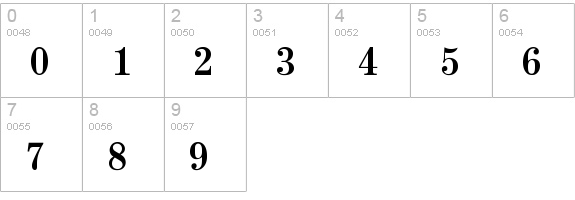
Century ATF Bold is a strong, high-contrast variant in the Century typeface family \xE2\x80\x94 well suited to headlines, attention-grabbing titles, and strong calls-to-action.
Century ATF Bold font is a modern and versatile typeface that exudes confidence and sophistication. With its bold and strong letterforms, this font is perfect for making a statement in headlines, titles, and branding materials. Its sleek and timeless design ensures readability and impact, making it a versatile choice for various design projects. Best of all, Century ATF Bold font is available for free download at FontsMarket.com. Whether you're a designer looking to add a touch of elegance to your work or a business owner seeking a distinctive font for your brand, Century ATF Bold is the perfect choice. Download it today and elevate your designs with this stunning typeface.